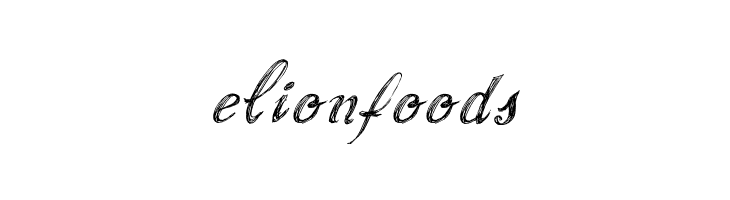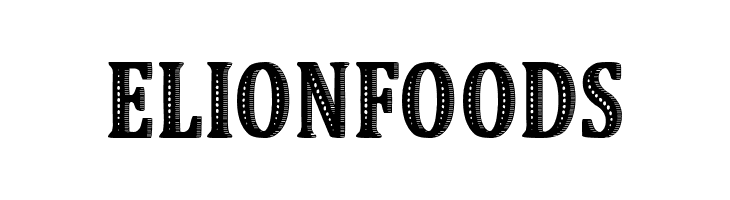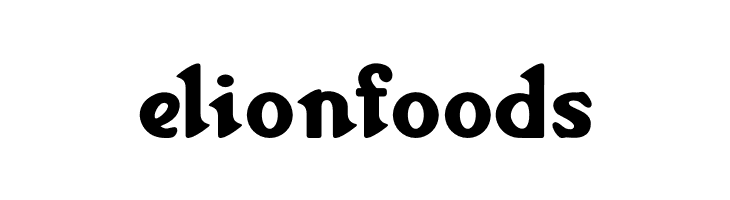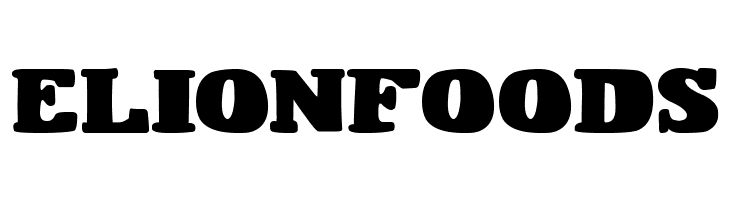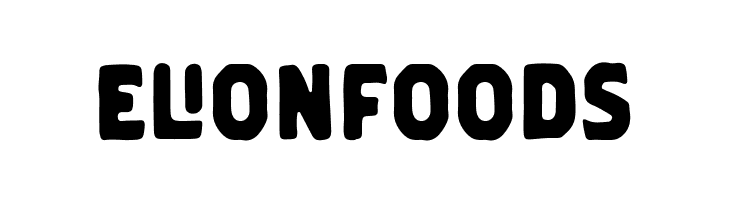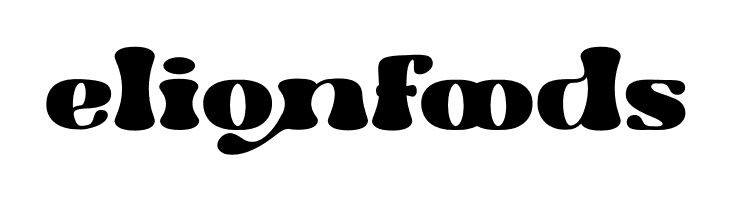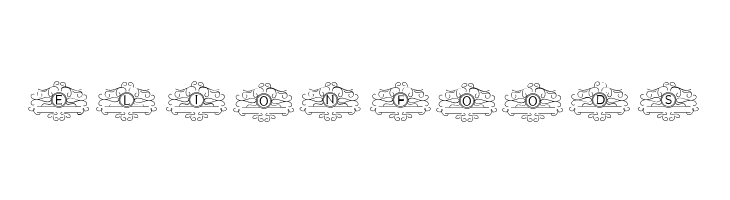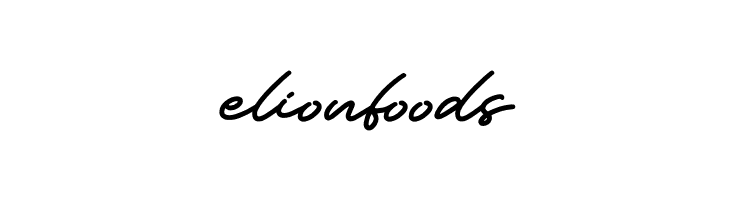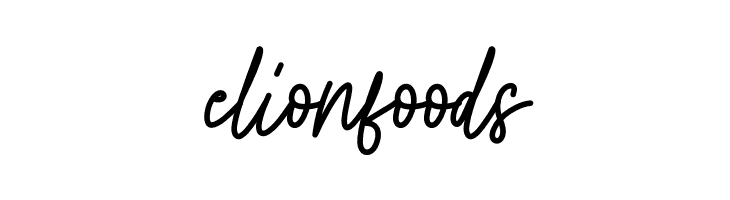
( Fonts by Daniel Gauthier )
A bold, serif font styled like vintage typewriter keys with circular outlines.
( Font by kingthingsfonts.co.uk )
A calligraphic font with medieval influences, featuring elegant and flowing letterforms.
( Fonts by Klaus Johansen - www.listemageren.dK )
Ornamental font featuring vintage cherub illustrations as characters.
An ornate and decorative font with a vintage, theatrical style.
A whimsical, vintage-style font with elegant curves and subtle serifs.
A bold, vintage-style serif font with decorative elements and strong presence.
( Fonts by Daniel Gauthier )
Bold, stencil-like font with characters in white on black squares, offering a vintage, industrial feel.
( Fonts by www.vicfieger.com )
A distressed, vintage typewriter-style font with a grunge aesthetic.
A bold, decorative font with vintage and art deco influences.
A bold, Art Deco-inspired font with geometric shapes and a vintage flair.
( Fonts by Ben Nathan )
A bold, vintage-style font with a strong, condensed appearance.
( Fonts by Emerald City Fontwerks )
A bold, distressed typewriter-style font with a vintage, grunge aesthetic.
A tall, narrow font with a vintage style and elegant curves.
A bold, decorative font with vintage appeal and strong vertical lines.
( Paul Lloyd Fonts )
A decorative, hand-drawn font with high contrast and vintage elegance.
( Fonts by Utopiafonts )
A bold, distressed font with a grunge, vintage aesthetic.
An ornate, decorative font with intricate patterns and vintage flair.
A playful, hand-drawn style font with bold, irregular characters.
An ornate, vintage-style font with intricate decorative details.
An ornate and decorative font with a vintage, Gothic style.
( Fonts by Koczman Balint - magiquefonts.gportal.hu )
A bold, decorative serif font with ornate detailing and vintage flair.